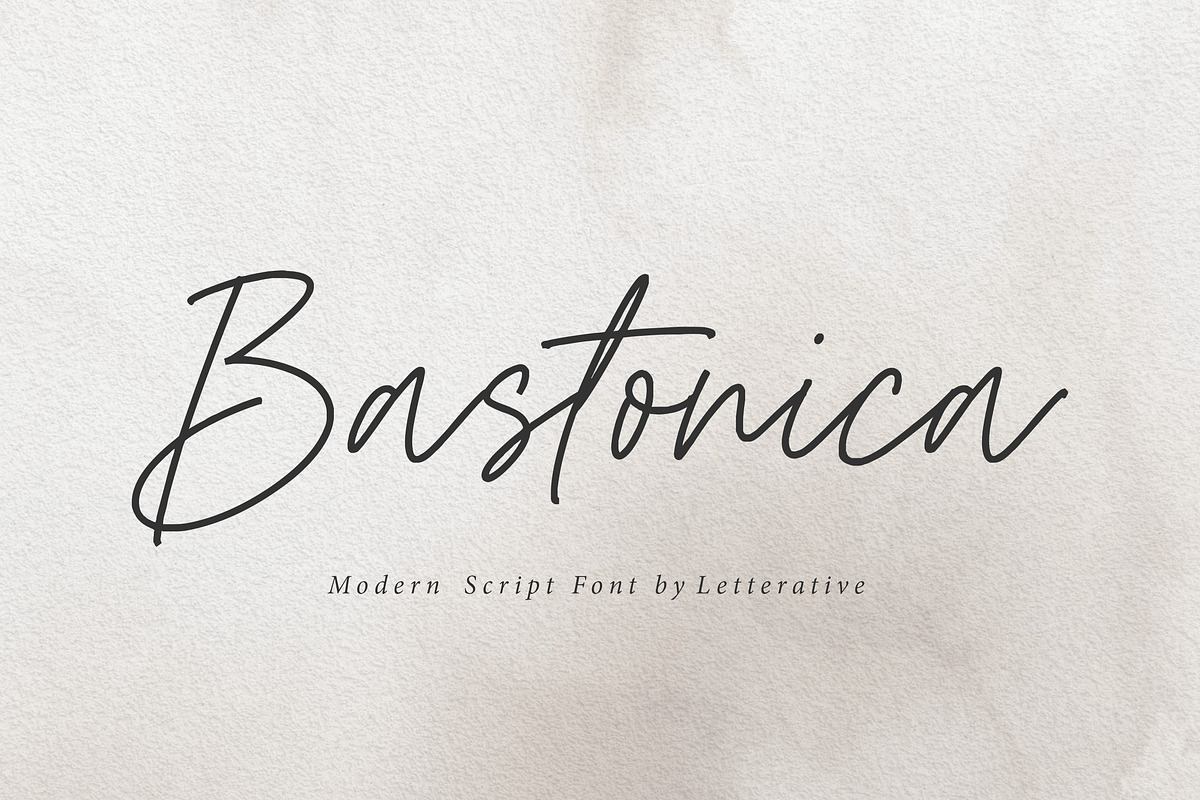
Bastonica - Modern Script Font Free Download
Bastonica - Modern Script Font Free Download is an elegant and stylish typeface that combines modern script with timeless sophistication. Perfect for branding, logos, wedding invitations, and other high-end design projects, Bastonica offers smooth, flowing letterforms that exude grace and charm. Its modern calligraphy style gives a unique handwritten touch to your work while maintaining a polished and professional appearance.